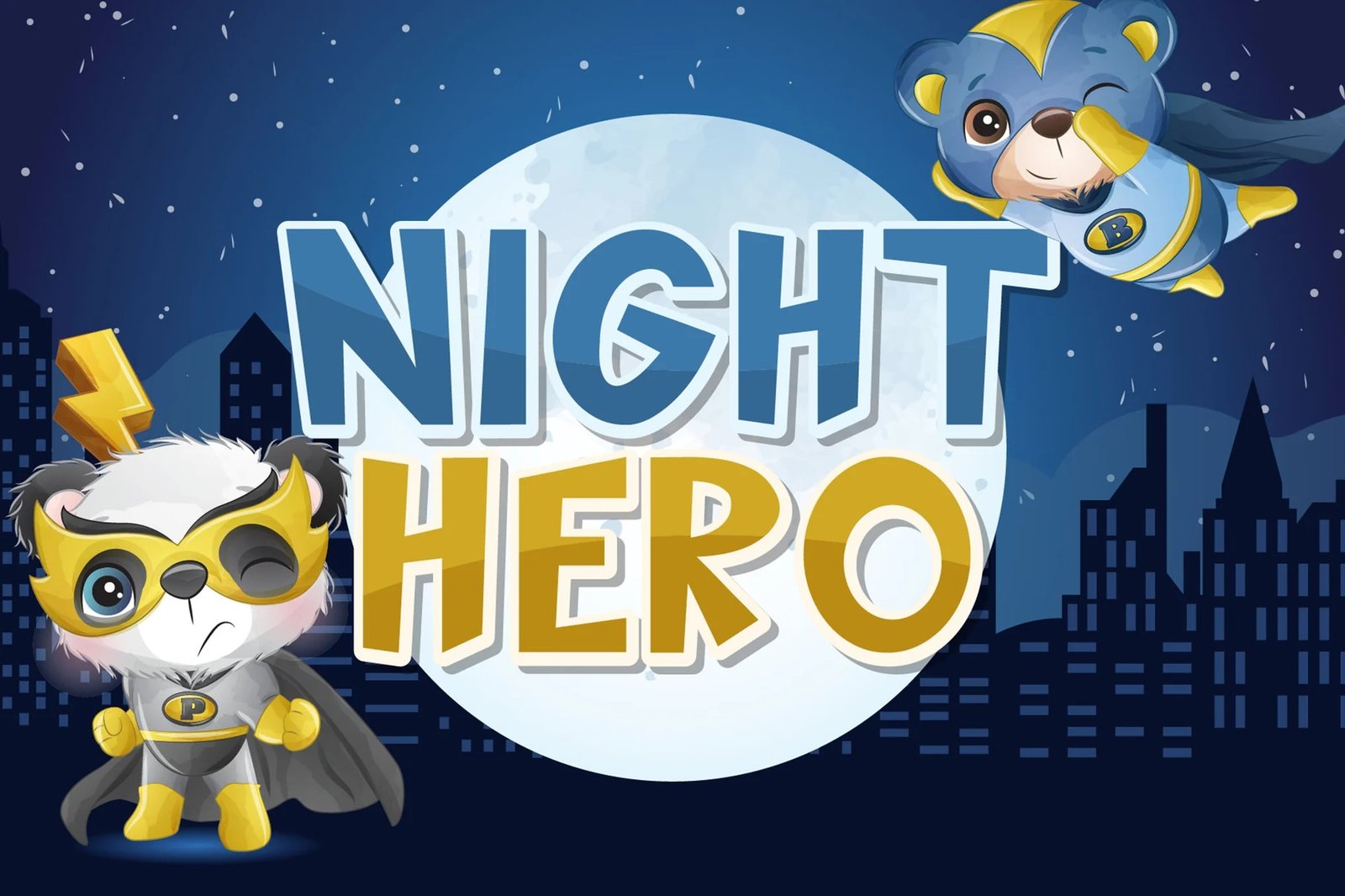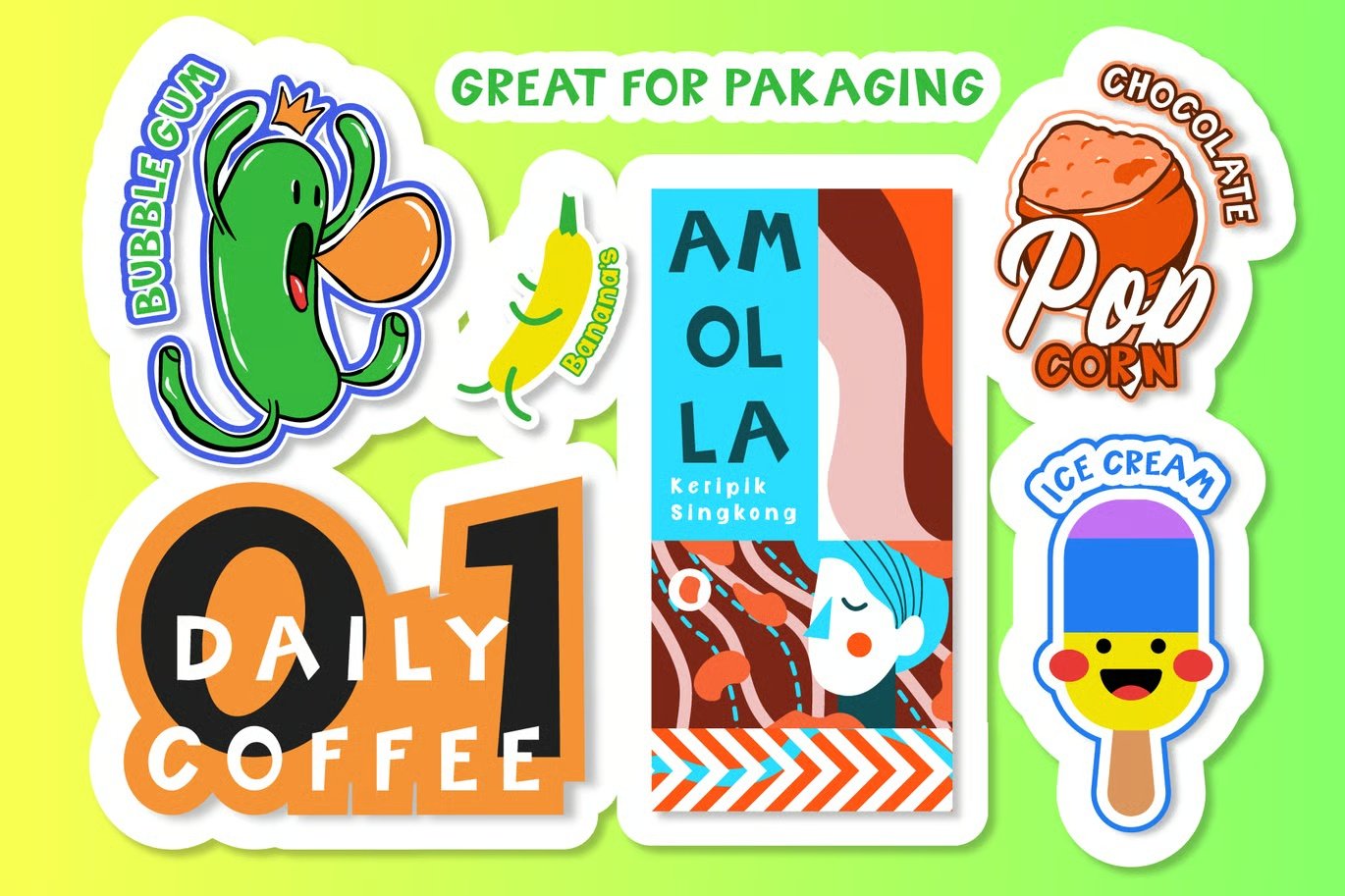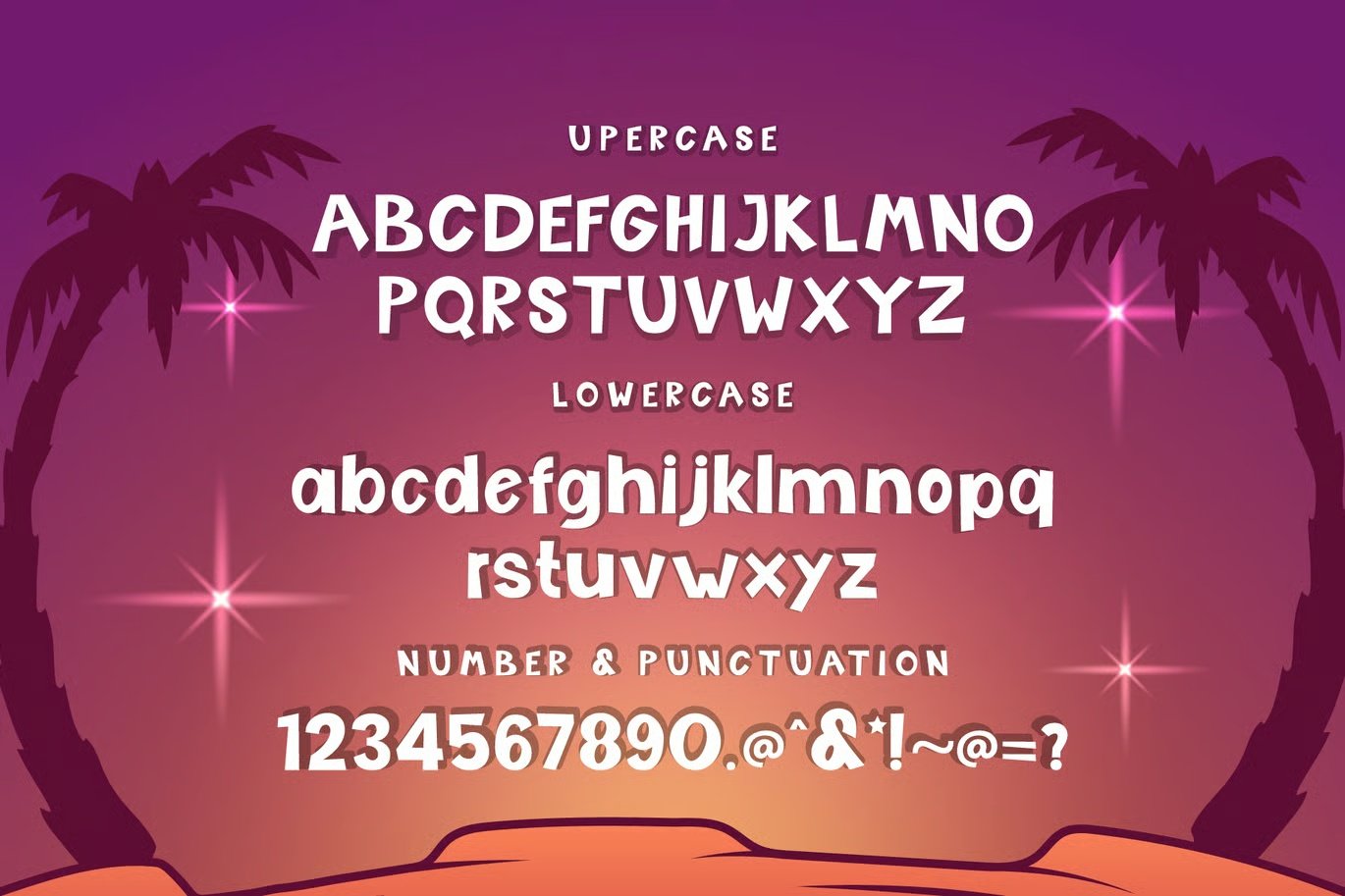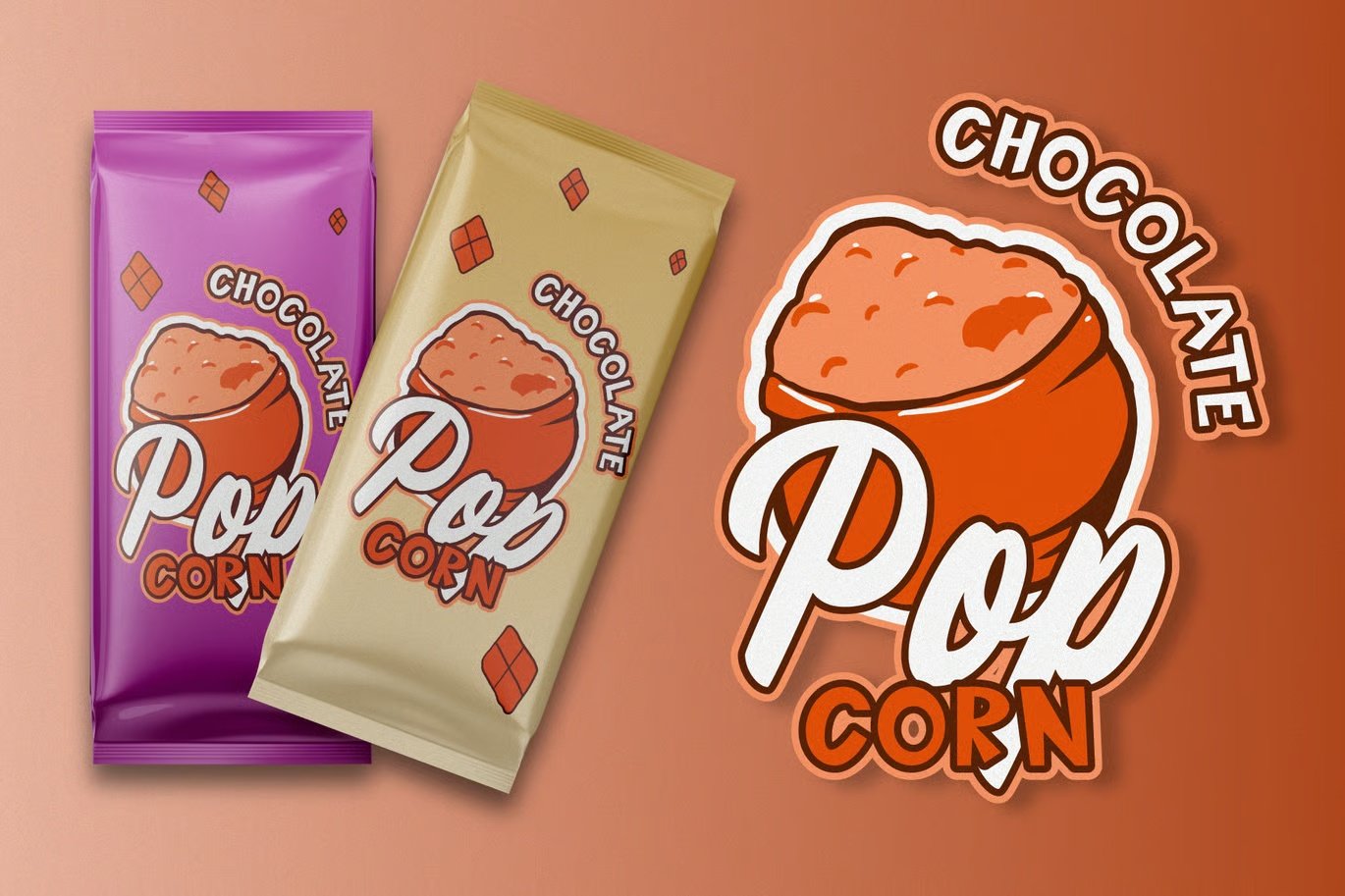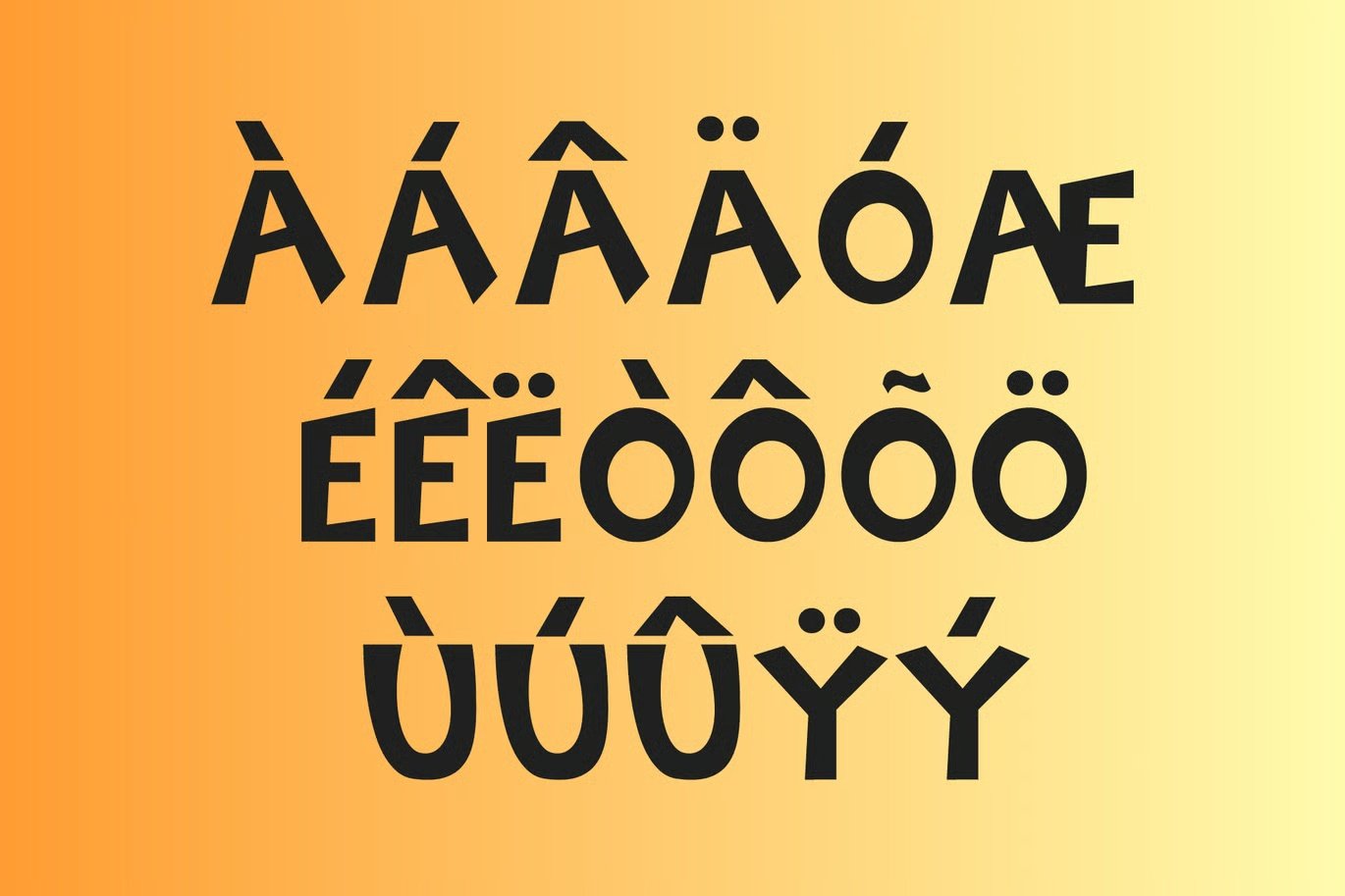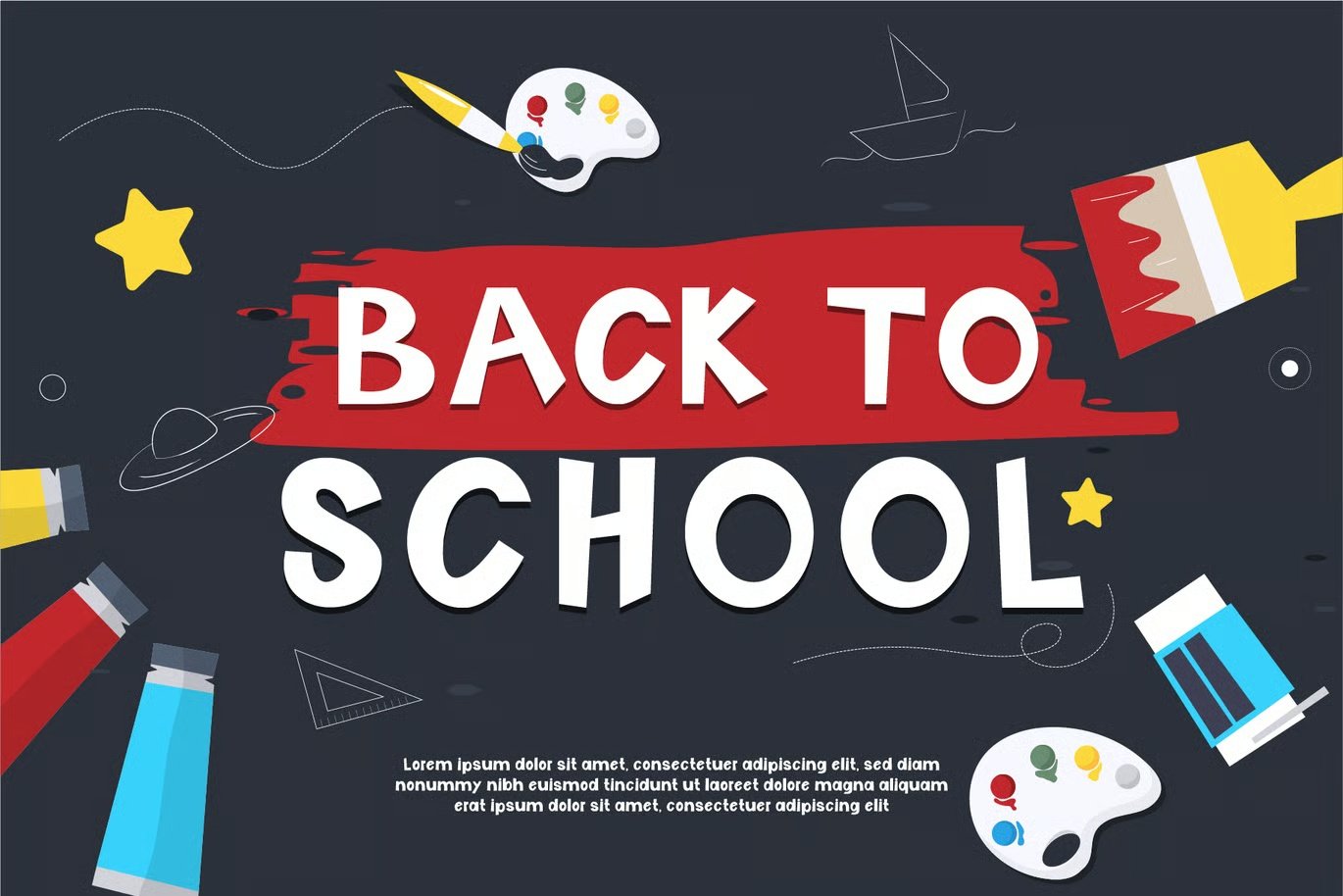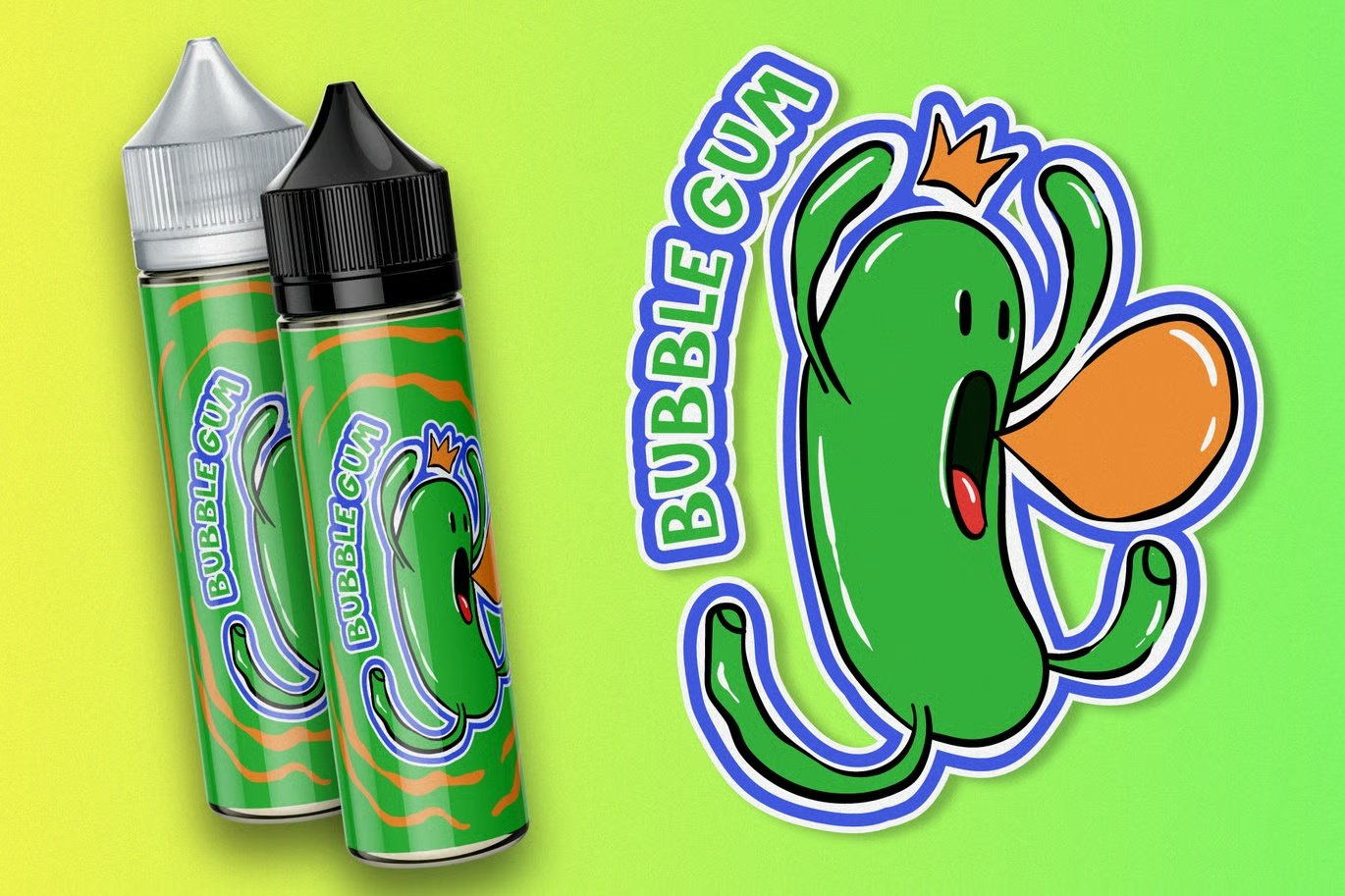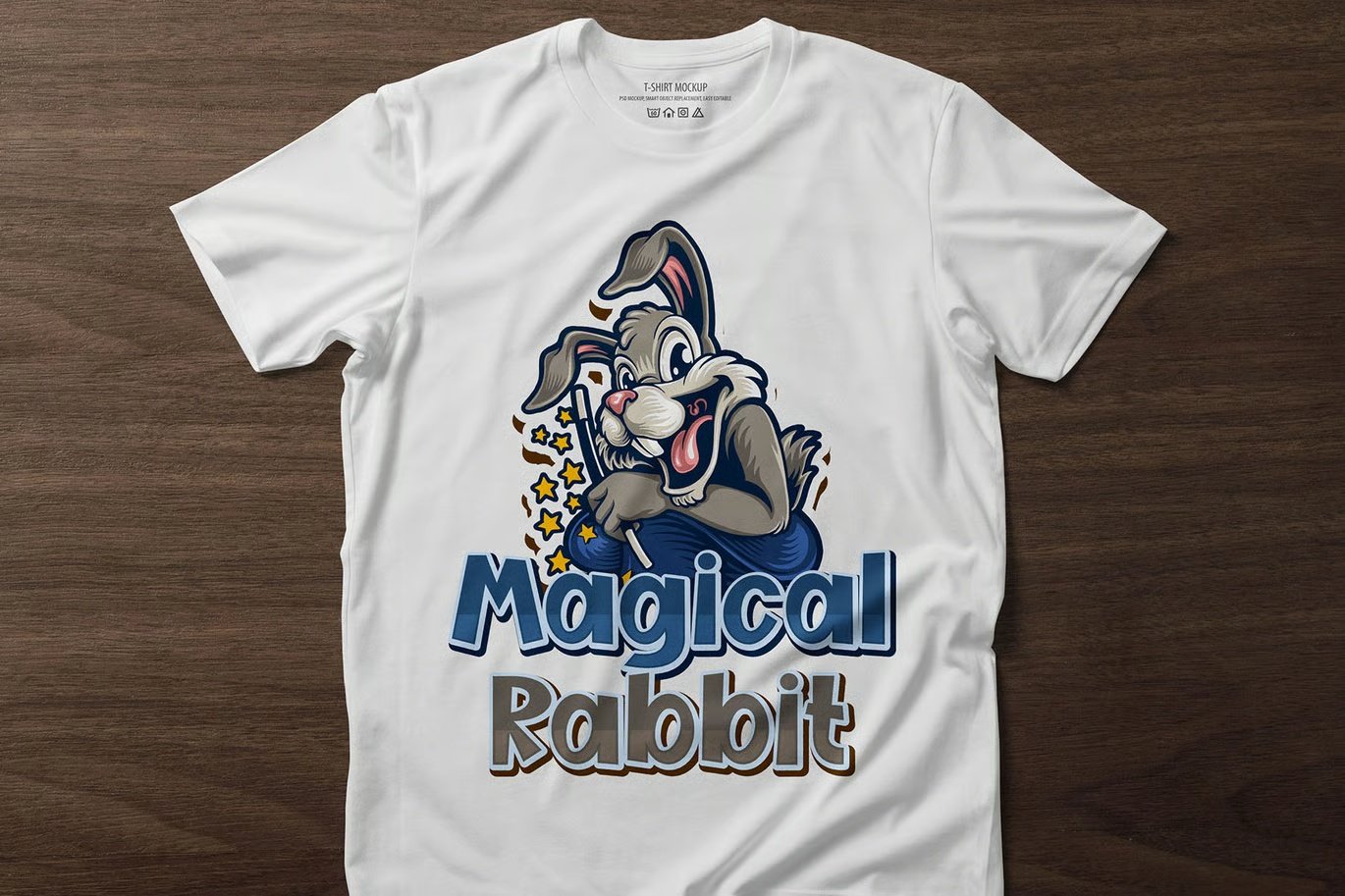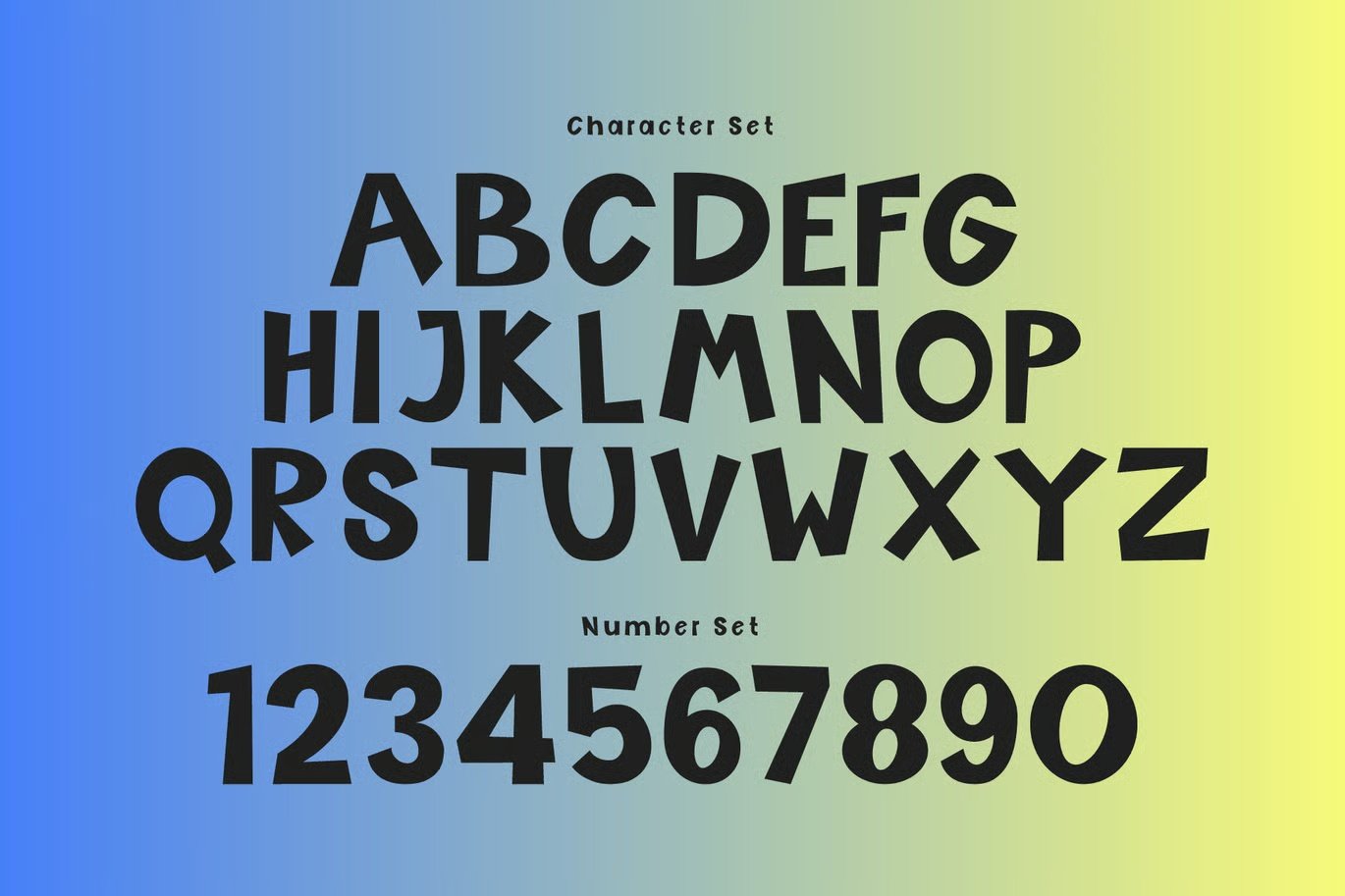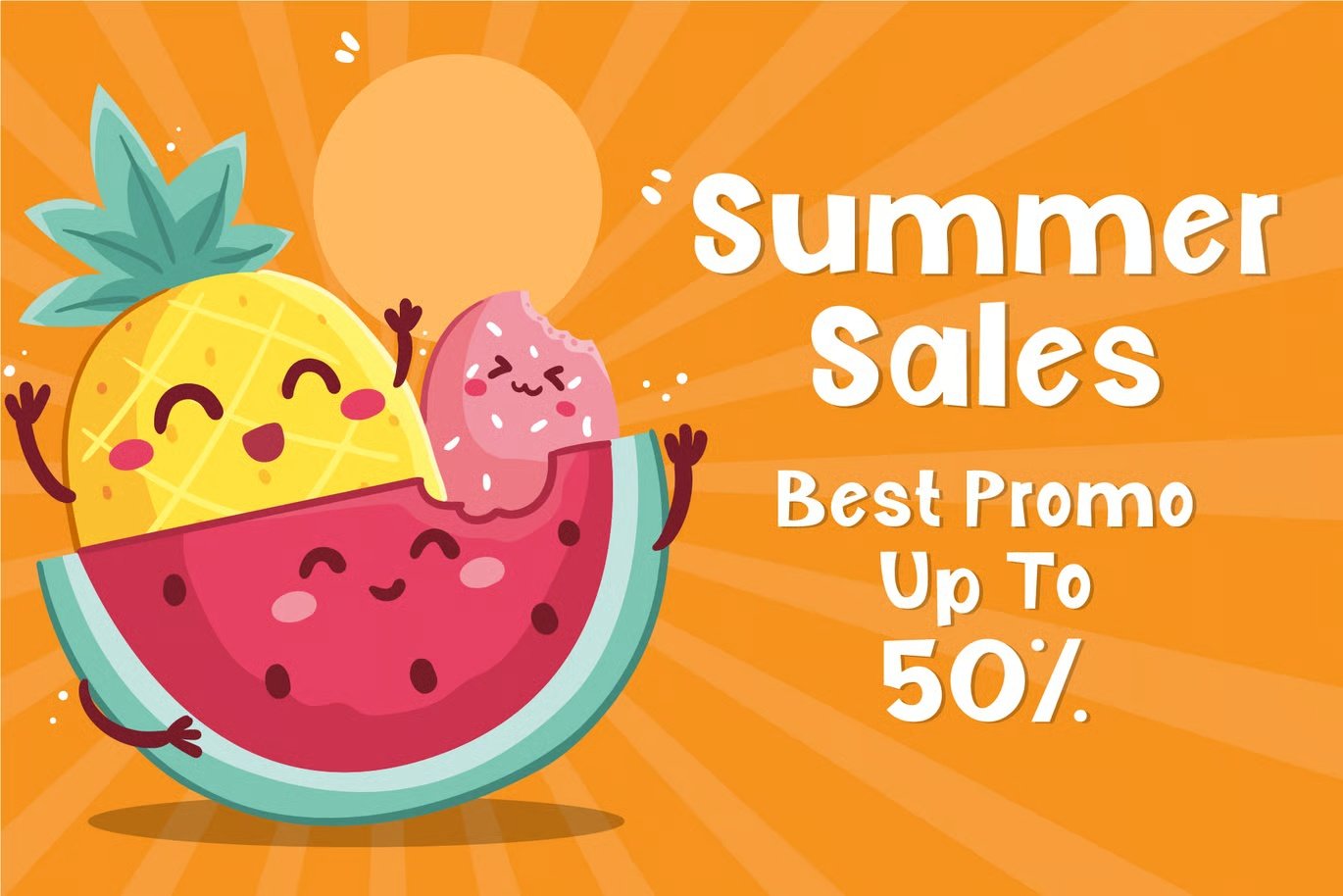
Night Hero is a handicraft font. Night Hero can be used for products such as handcraft, product packaging, quotes, product design, craftsmen, labels, photography, watermarks, logos & branding. Everything can be accessed using software that supports Opentype, such as Adobe Indesign, Adobe CS Illustrator, Adobe Photoshop CC, and Corel Draw.